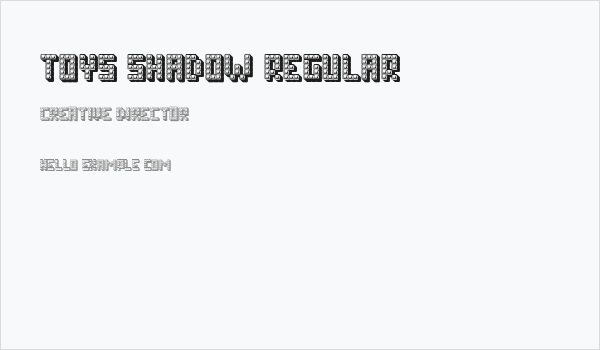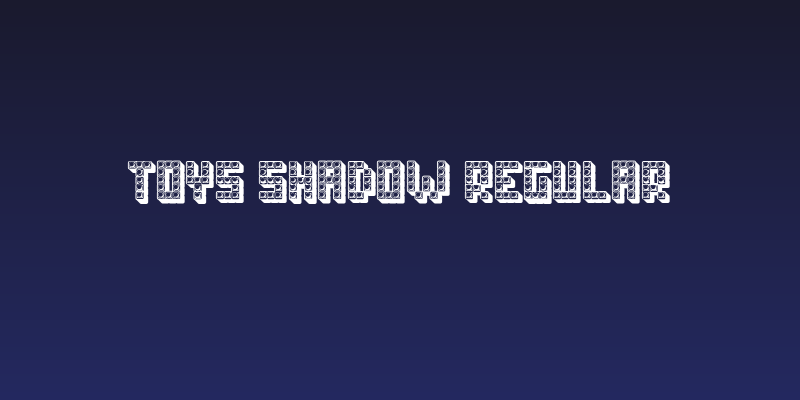
Toys Shadow Regular Font
Toys Shadow Regular Description
This playful and bold font features a unique 3D block design with a shadow effect, giving it a toy-like appearance. Each character is constructed with a pattern of small, circular elements that add texture and depth. The font maintains a consistent structure across all letters and numbers, creating a cohesive and eye-catching look. Its distinct style makes it ideal for projects that require a fun and engaging visual element. The shadow effect enhances the dimensionality, making the characters pop off the page. This font is perfect for children's materials, playful branding, or any design that seeks to capture a sense of whimsy and creativity.
| Overall Style | Playful, Creative |
| Proposed Projects | Ideal for children's books, toy packaging, playful branding, and creative posters. |